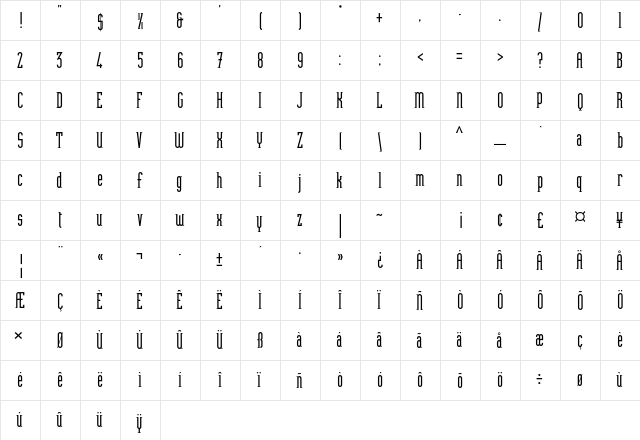
Heliotype Std Regular
| Designer | Lee Martin McAuley |
Design Context for Heliotype Std Typeface
Heliotype Std is a composed and adaptable typeface that performs quietly and consistently across a wide range of design contexts.